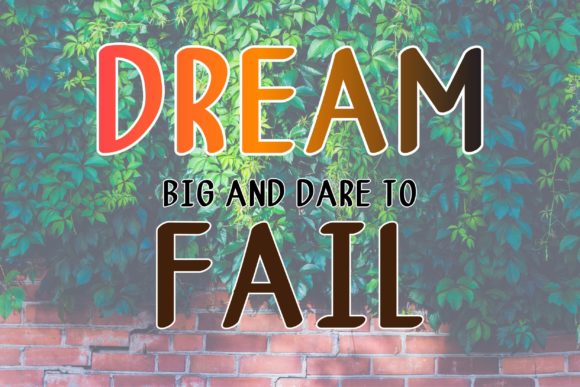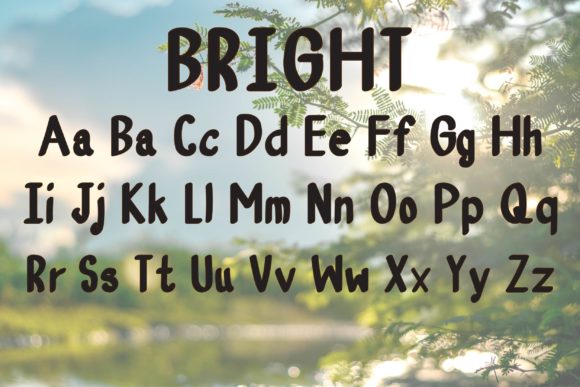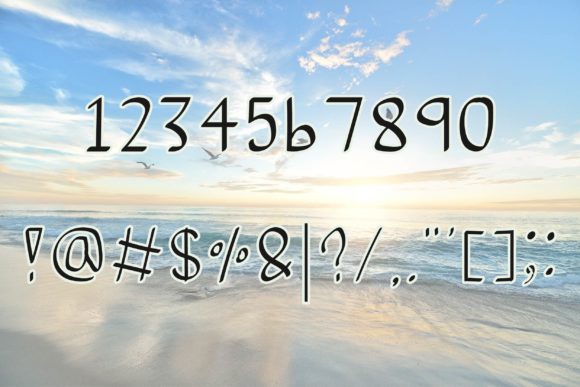
The Bright Font: A Cool and Fun Display Font for Your Creative Projects
Have you ever been in the middle of a design project, and suddenly, you’re stuck on finding the perfect font? I remember a recent experience where I was working on a branding project for a trendy clothing line, and I just couldn’t find a font that captured the fun and youthful vibe I was going for. That’s when I stumbled upon the Bright font, and it instantly became my go-to choice. In this article, I’ll share my experience with the Bright font, its features, and how to make the most of it in your designs.
A Personal Review of Bright Font
What I Love About Bright Font
- ✨ Unique and Fun Design: Bright font has a distinctive and playful look that sets it apart from other display fonts. Its fun and beautiful design makes it perfect for branding projects, logos, t-shirt printing, and creative products.
- ✅ High Versatility: This font is incredibly versatile and can be used for a wide range of projects, from children’s products to trendy fashion brands.
- 💡 Excellent for Headings and Titles: Bright font is optimized for headings and titles, making it perfect for creating eye-catching text that grabs attention.
While Bright font is an excellent choice for many projects, there are a few things to keep in mind:
- ⚠️ Limited Use for Body Text: Due to its bold and playful design, Bright font might not be the best choice for body text or long paragraphs.
- 🤔 Requires Careful Pairing: When pairing Bright font with other fonts, make sure to choose a font that complements its playful and bold design.
- Experiment with OpenType features like glyphs and stylistic alternates to add more creativity to your text.
- Explore Glyphs and OpenType features to unlock more creative possibilities.
The Designer Inspiration Behind Bright Font
Bright font was designed with the goal of creating a fun and beautiful display font that would inspire creativity and playfulness. Its designer aimed to craft a font that would be perfect for branding projects, logos, and creative products. With its unique and bold design, Bright font has become a popular choice among designers and crafters.
| Font Name | Bright Font |
| Author | Doodle Alphabet |
| What is Bright font best used for? | Bright font is perfect for branding projects, logos, t-shirt printing, creative products, and headings/titles. |
| Is Bright font suitable for body text? | No, Bright font is not ideal for body text due to its bold and playful design. |